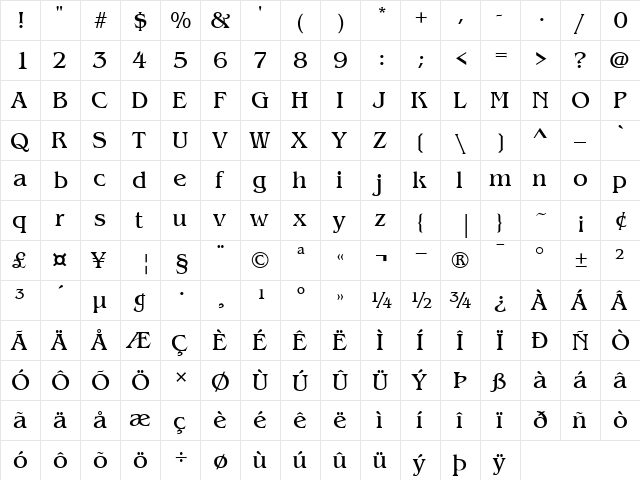
ITCBenguiat-Book Book Font Preview
ITCBenguiat-Book Book
ITCBenguiat-Book Book Font Details
Design Context for ITCBenguiat-Book Typeface
ITCBenguiat-Book offers clean, dependable letterforms without strong stylistic allegiance, making it a practical choice for designers who need flexibility.